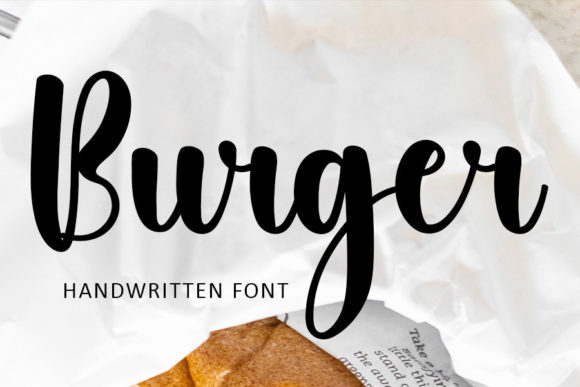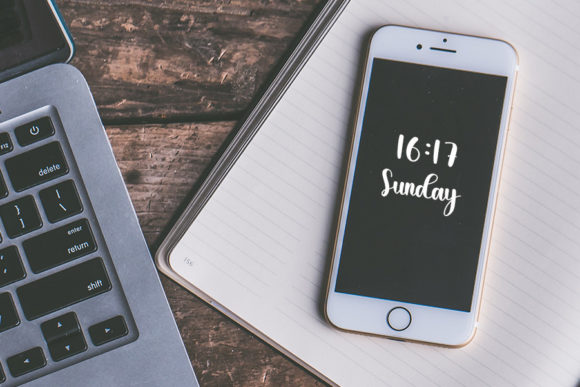
About Burger Font
“Burger” is a stylish handwritten font that exudes a contemporary atmosphere with impeccable form. Inspired by timeless classic calligraphy, this font strikes a balance between style and variation, making it a perfect choice to enhance the beauty of your projects.
The stylish and contemporary design of “Burger” lends a modern and sophisticated touch to your creations. Whether you’re working on branding, packaging, invitations, or any other project, this font’s versatility allows it to adapt seamlessly to various design contexts, adding a unique flair.
The balanced and varied nature of “Burger” makes it a valuable asset for designers seeking a font that combines elegance with a touch of modernity. Its timeless calligraphic inspiration brings a sense of refinement to your projects, ensuring they stand out with a touch of sophistication.
In summary, “Burger” is more than just a font; it’s a stylish and contemporary tool designed to elevate the beauty of your projects. Its impeccable form and versatile nature make it suitable for a range of applications, providing a unique and sophisticated aesthetic to your designs. Embrace the timeless calligraphic inspiration of “Burger” and let it add a touch of elegance to your creative endeavors.